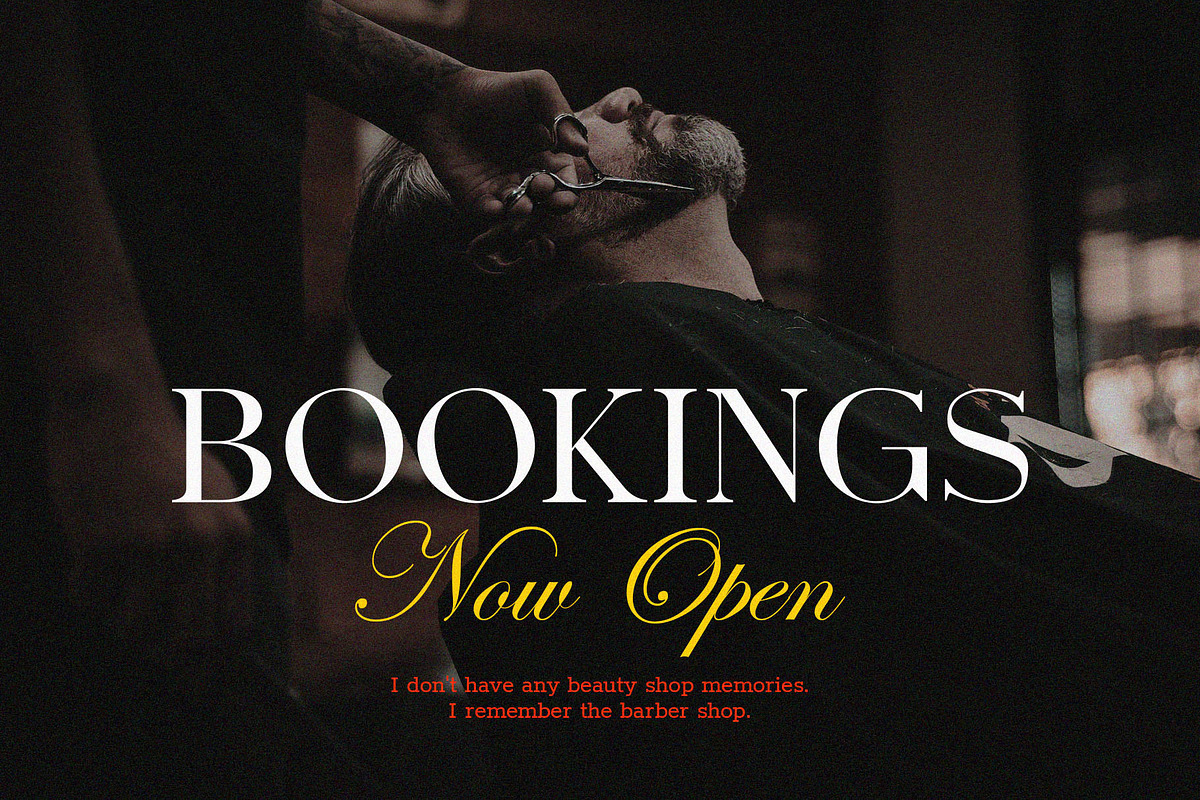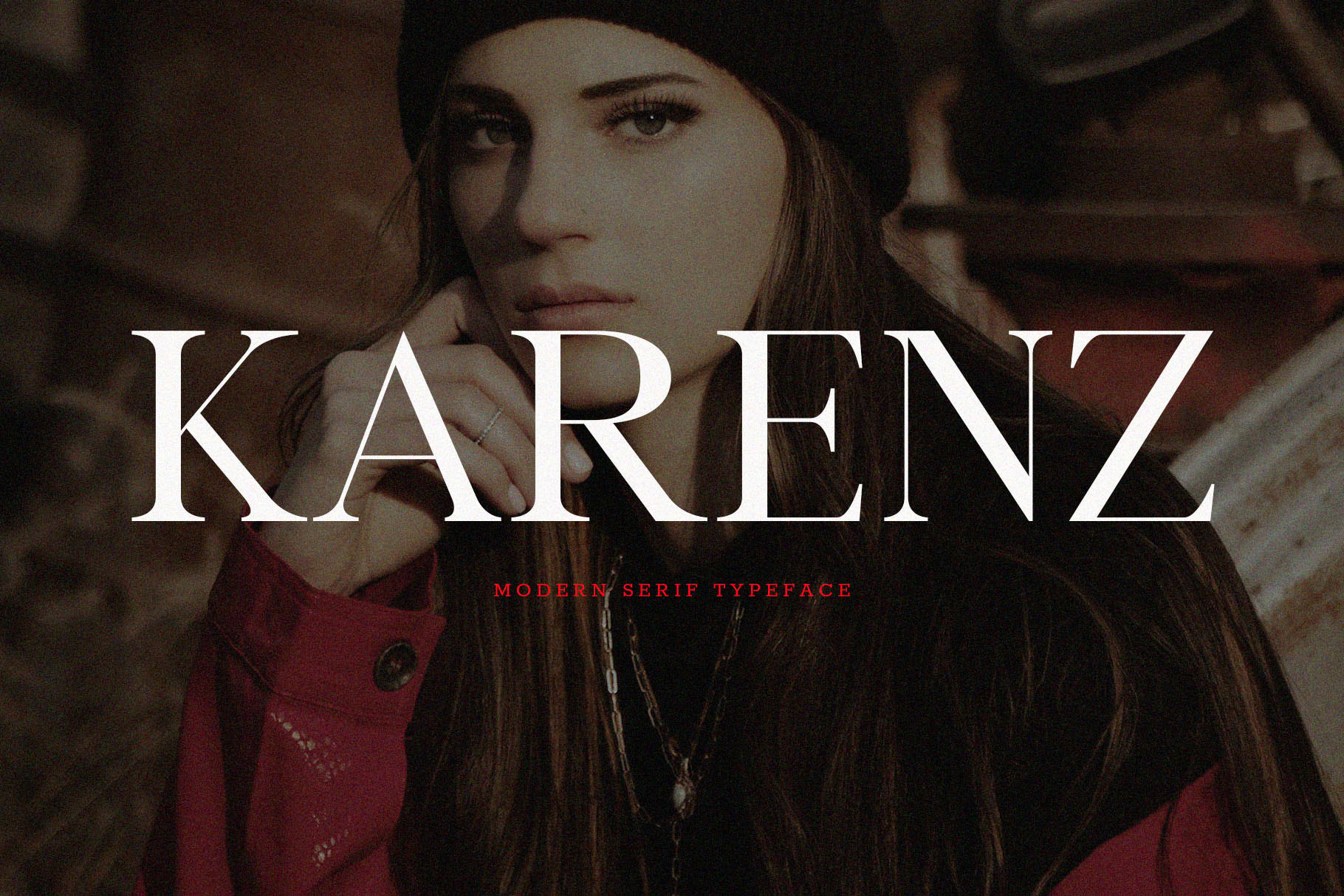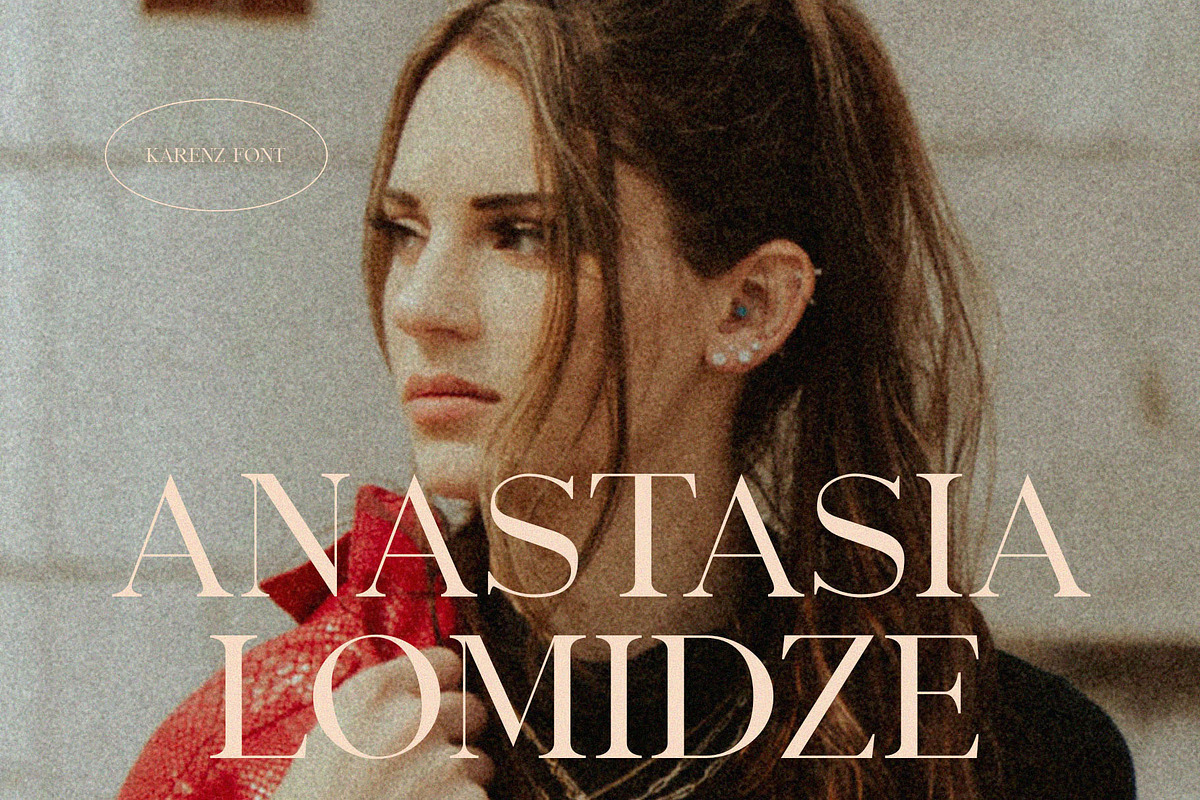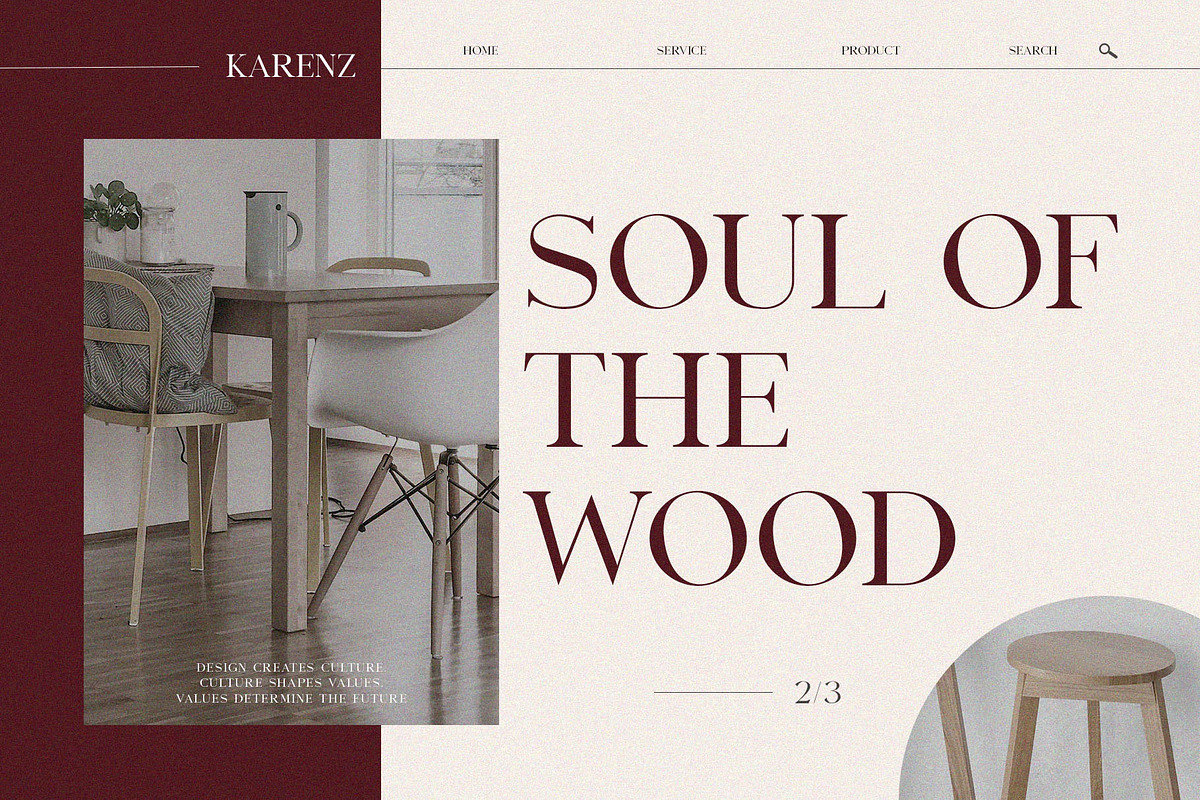
Karenz Modern Serif Typeface
Introducing 'Karenz' Font:
Introducing Karenz, a neat, modern, and elegant serif font designed to bring a touch of sophistication to your titles, subtitles, social media posts, and various other creative projects. Use Karenz to elevate the visual appeal of your designs and capture the hearts and attention of your audience. With its clean and stylish appearance, Karenz is a versatile font that adds a timeless charm to any project it graces.
Ideal for:
- Modern Designs
- Beauty and Fashion
- Elegant Creations
- Advertising Campaigns
- Social Media Designs
- Web Designs
- Magazines
- Ready for Creative Expression
- Immaculately Crafted Letters